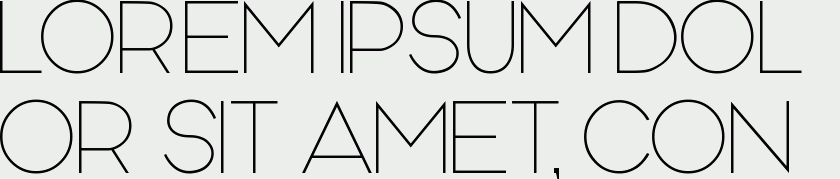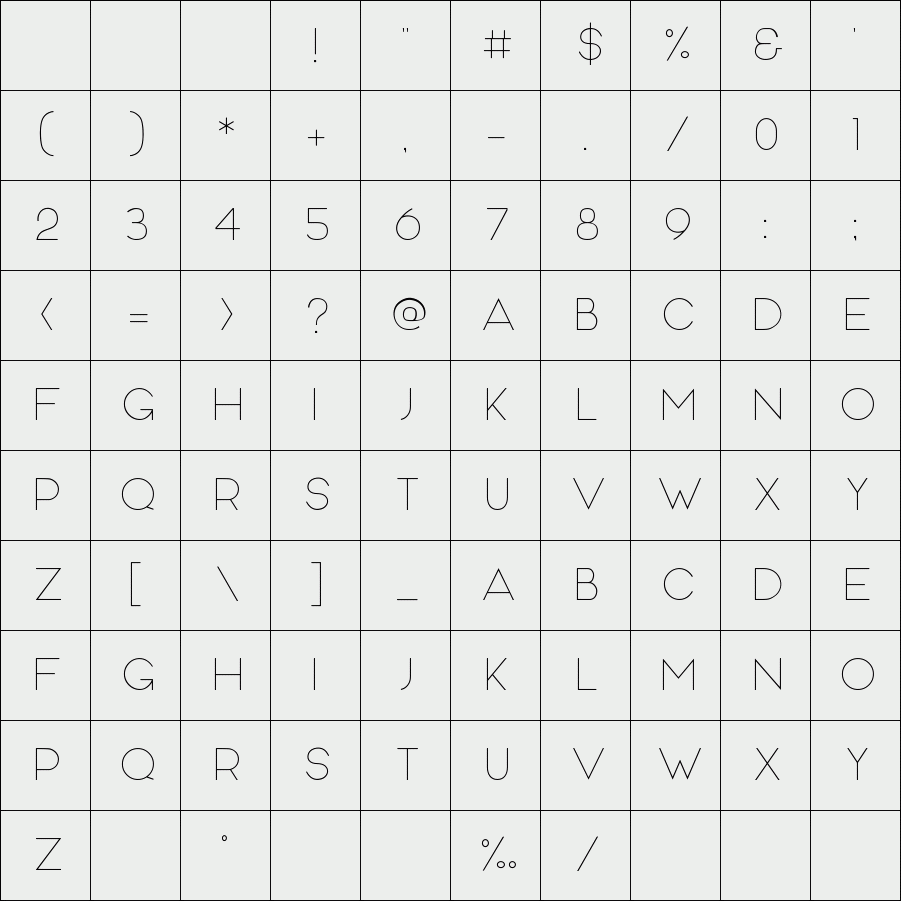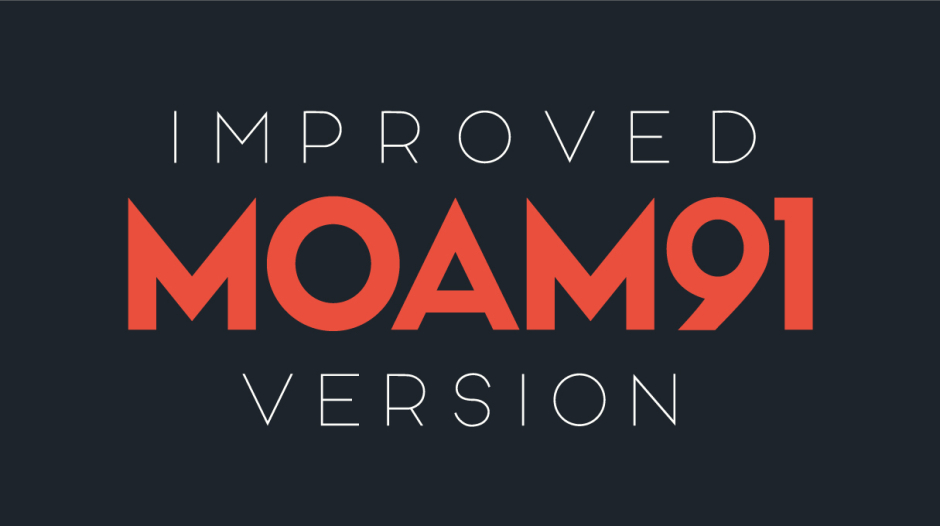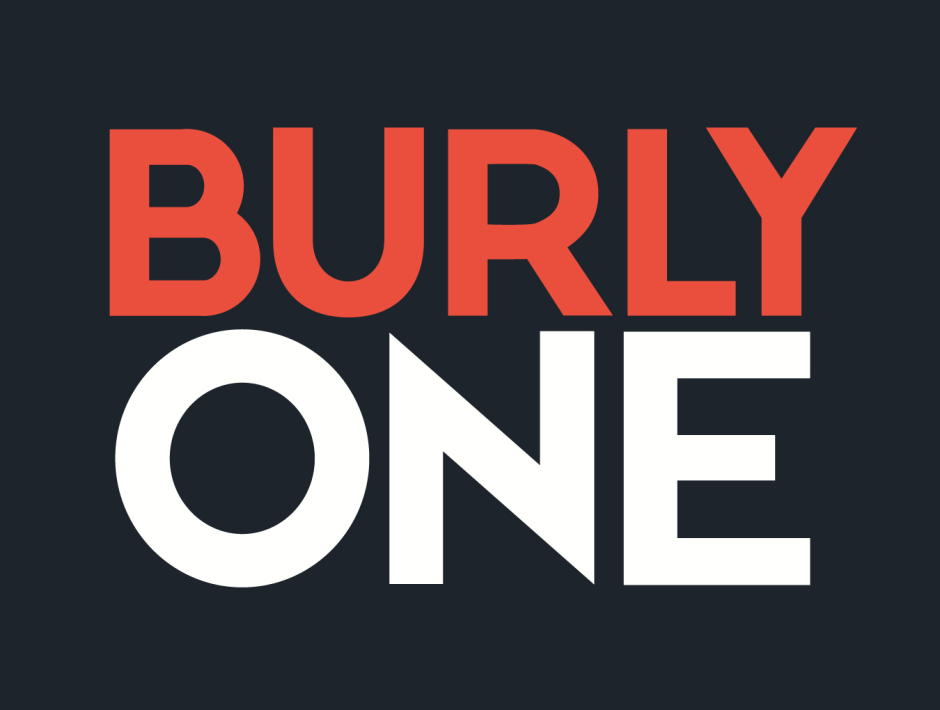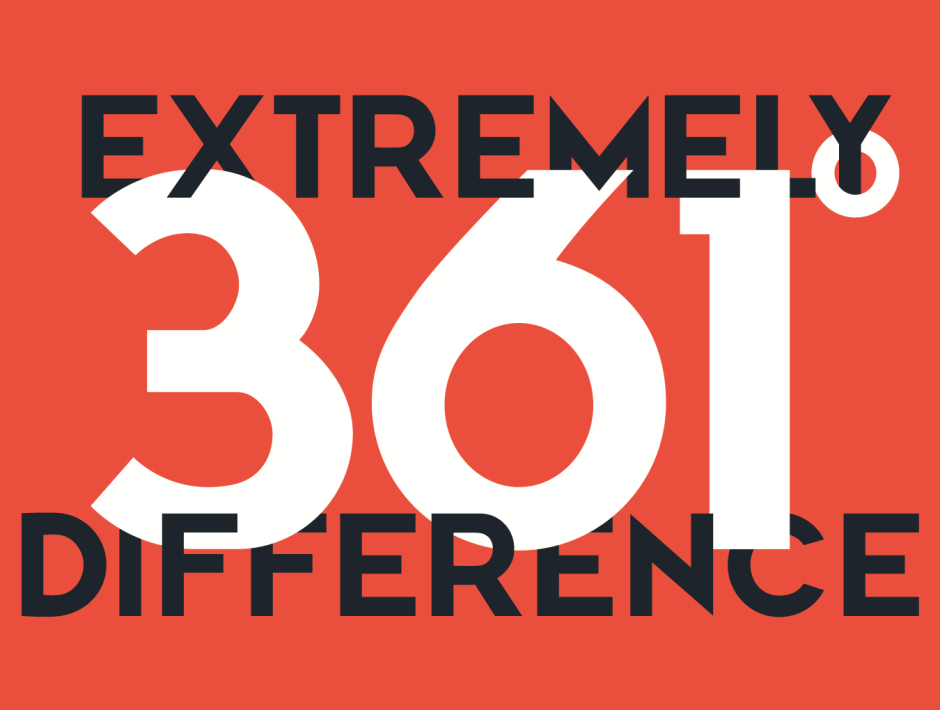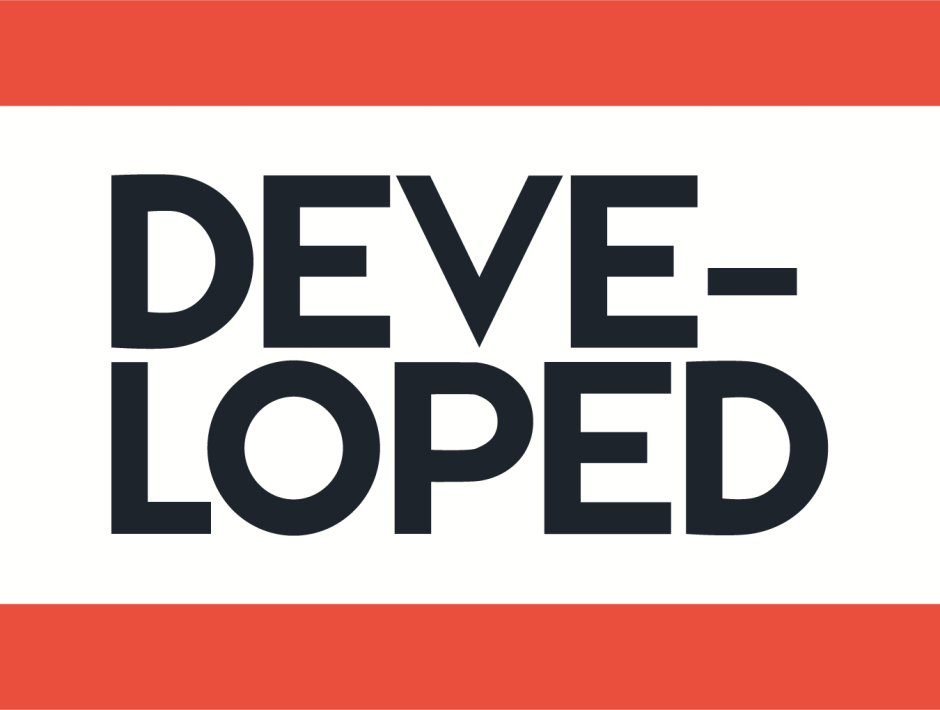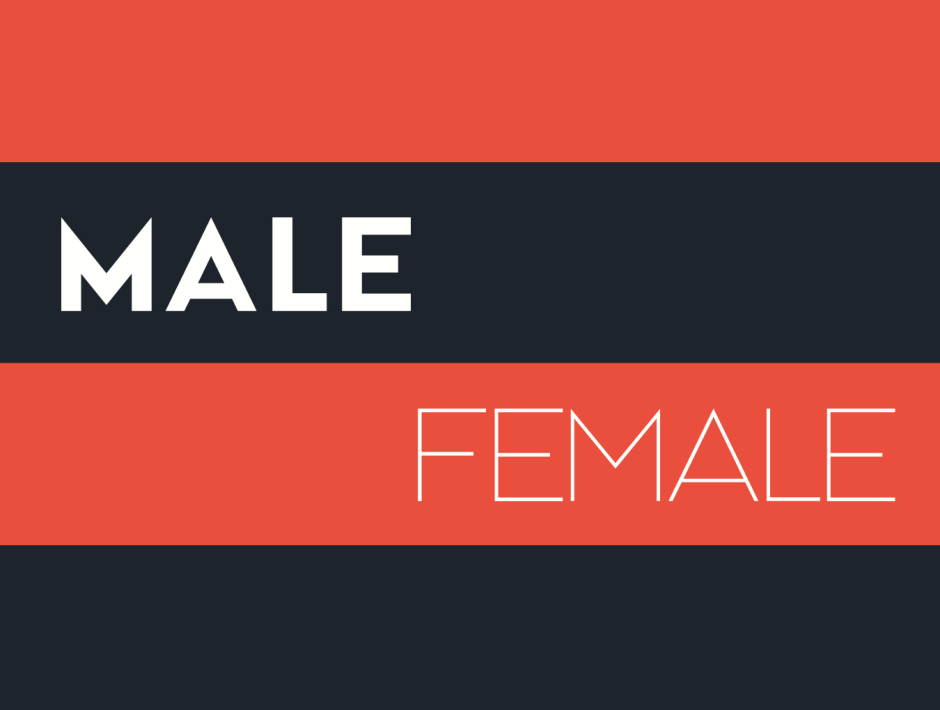
MOAM91 Typeface
Introducing MOAM91, a geometric sans-serif style typeface. This bold font has a beautifully modern look and feel. Also available in two different weights; bold & light. Enjoy!